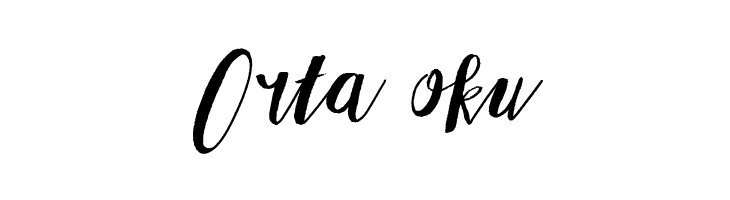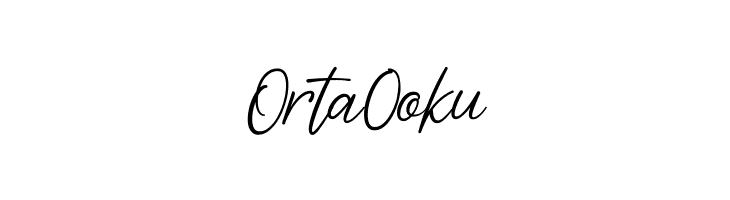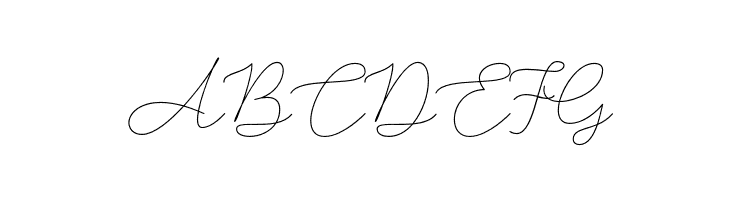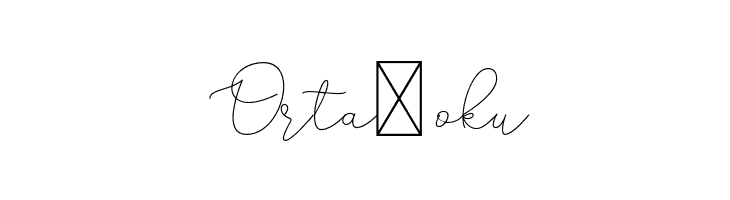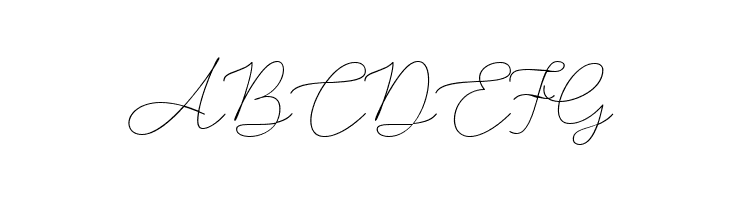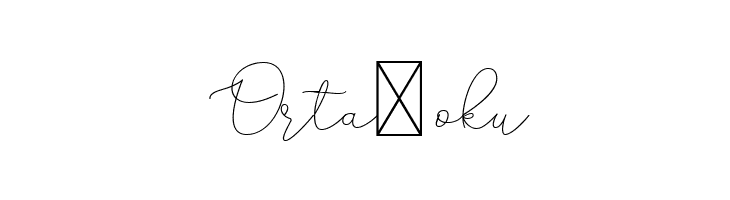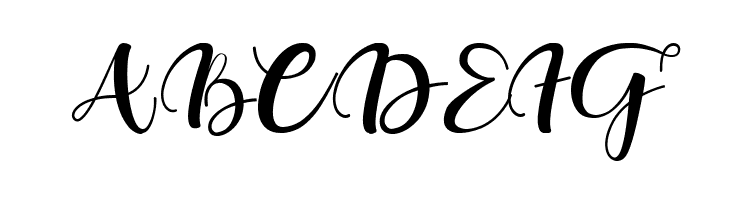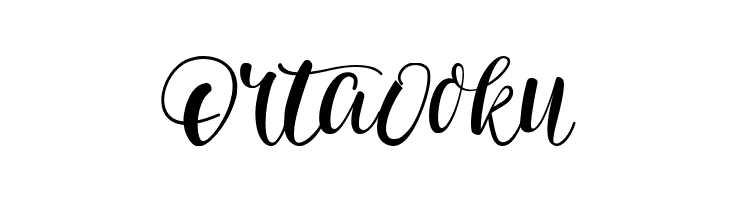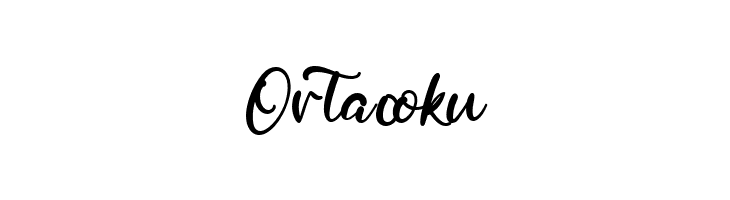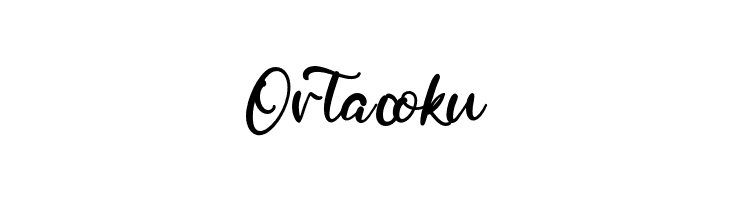
• Adellicia
A graceful and modern script font with elegant, flowing characters.
• Adellicia
A graceful and flowing script font with elegant cursive strokes.
• Adelliya Script
A graceful and sophisticated script font with a flowing, handwritten style.
• Adellove
A bold, brush-style font with dynamic strokes and a modern calligraphic flair.
• Adellum
A flowing, cursive script font with elegant, rounded edges and dynamic strokes.
• Adellum
A flowing, cursive script font with elegant loops and swashes.
• Adelwish
A cursive, handwritten font with elegant, flowing strokes and ornate flourishes.
• Adelya Free Regular
An elegant, flowing script font with interconnected letters and high contrast strokes.
• AdelyaFree-Regular
An elegant script font with flowing, calligraphic strokes.
• Adelyyn Trial
A bold, playful script font with rounded, fluid characters.